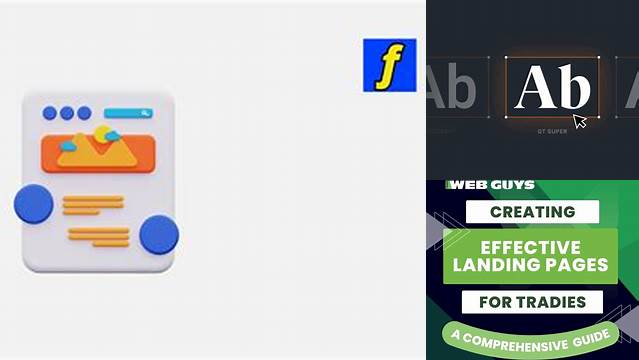
Best Fonts For Landing Pages: Boost Conversions!
Choosing the right fonts for your landing pages is super important, guys! It's not just about making things look pretty; it's about creating a positive user experience that grabs attention, keeps people engaged, and ultimately drives conversions. A font can make or break your landing page. Let's dive into the world of typography and explore how to pick the best fonts to boost your landing page performance.
Why Fonts Matter on Landing Pages
So, why should you even care about fonts? Well, think about it like this: your landing page is often the first impression potential customers have of your brand. And fonts? They're a big part of that impression. Fonts play a crucial role in several key areas:
- Readability: The primary purpose of a font is to be readable. If visitors struggle to decipher your message, they'll bounce faster than you can say "conversion rate." Choose fonts that are clear and easy on the eyes, especially for body text.
- Brand Personality: Fonts have personalities! A sleek, sans-serif font can convey modernity and innovation, while a classic serif font might project trustworthiness and tradition. Make sure your font choice aligns with your brand's identity and the message you want to send.
- User Experience (UX): Good typography enhances the overall user experience. Readable fonts, proper spacing, and a well-defined visual hierarchy guide visitors through your content, making it easier for them to find the information they need.
- Conversions: Believe it or not, fonts can directly impact your conversion rates. A well-chosen font can make your call-to-action (CTA) buttons stand out, draw attention to key benefits, and ultimately encourage visitors to take the desired action.
- Accessibility: Ensuring your font choices are accessible to all users, including those with visual impairments, is crucial. Use sufficient contrast between text and background, and consider font sizes that are easily adjustable.
Understanding Font Types: Serif vs. Sans-Serif
Okay, let's talk about the two main font categories: serif and sans-serif. Knowing the difference is the first step to making informed decisions about your landing page typography.
Serif fonts are characterized by small decorative strokes, or "serifs," at the ends of the letters. Think of fonts like Times New Roman, Georgia, and Garamond. Serif fonts often evoke a sense of tradition, authority, and sophistication. They can be a great choice for headlines or body text if you want to create a classic or formal look.
- Pros:
- Timeless and elegant.
- Can improve readability in print.
- Good for establishing credibility.
- Cons:
- Can appear cluttered on screens, especially at smaller sizes.
- May not be the best choice for modern or minimalist designs.
Sans-serif fonts, on the other hand, lack those little decorative strokes. Fonts like Arial, Helvetica, and Open Sans fall into this category. Sans-serif fonts tend to look clean, modern, and minimalist. They're often a popular choice for websites and landing pages because they're generally easier to read on screens.
- Pros:
- Clean and modern appearance.
- Excellent readability on screens.
- Versatile and can be used in a variety of designs.
- Cons:
- Can sometimes appear generic.
- May not be the best choice for conveying a sense of tradition or authority.
Best Practices for Choosing Landing Page Fonts
Alright, now that we've covered the basics, let's get into the nitty-gritty of choosing the right fonts for your landing pages. Here are some best practices to keep in mind:
- Prioritize Readability: This is the most important factor. No matter how stylish a font looks, it's useless if people can't read it. Test your font choices on different devices and screen sizes to ensure they're legible.
- Consider Your Target Audience: Who are you trying to reach with your landing page? A font that appeals to a young, tech-savvy audience might not resonate with an older, more conservative demographic. Tailor your font choices to your target audience's preferences.
- Limit the Number of Fonts: Don't go overboard with font choices. Using too many different fonts can create a cluttered and confusing look. Stick to a maximum of two or three fonts: one for headlines, one for body text, and maybe one for accents or CTAs.
- Establish Visual Hierarchy: Use font size, weight, and color to create a clear visual hierarchy on your landing page. Make sure your headlines are larger and bolder than your body text, and use different font weights to emphasize important information.
- Ensure Sufficient Contrast: Make sure there's enough contrast between your text and background colors. Low contrast can make your text difficult to read, especially for people with visual impairments. A good rule of thumb is to use dark text on a light background or vice versa.
- Typewolf: A website that showcases real-world examples of typography in action.
Conclusion: Make Your Landing Pages Shine with the Right Fonts
Choosing the right fonts for your landing pages is an investment that can pay off big time. By prioritizing readability, aligning with your brand, and creating a positive user experience, you can use typography to boost conversions and achieve your marketing goals. So, take the time to experiment with different font combinations and find what works best for your audience. Your landing pages will thank you for it!